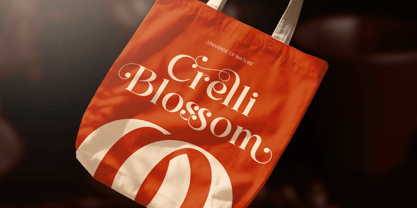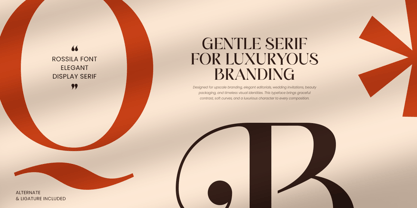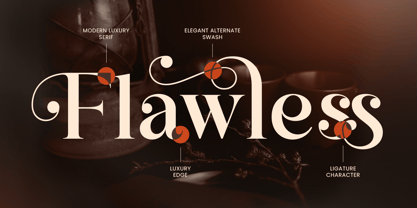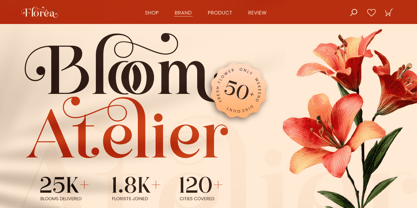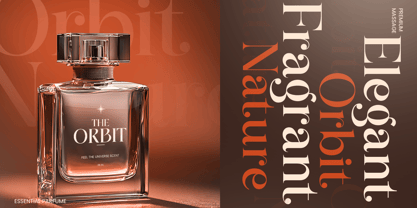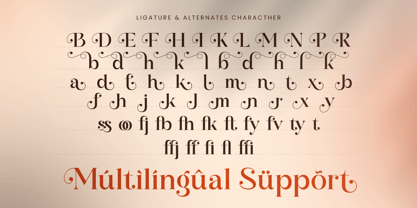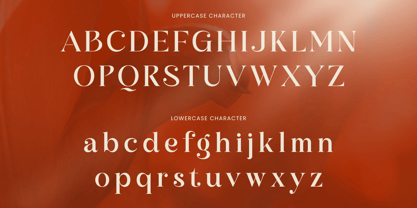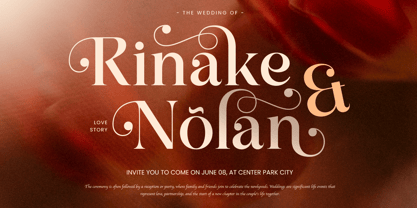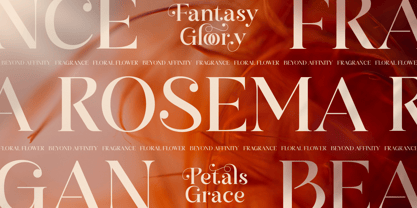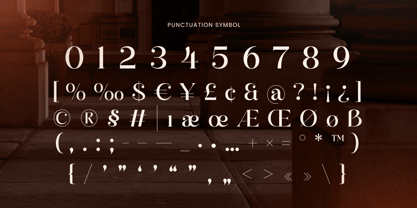
Rosslia
Rosslia is an elegant luxury serif font designed to express refinement, sophistication, and timeless beauty. Featuring graceful curves, balanced proportions, and high-end serif details, this typeface is ideal for luxury branding, fashion campaigns, editorial layouts, and premium packaging.
Crafted for designers who seek exclusivity and elegance, Rosslia blends modern aesthetics with classic serif charm. Its refined letterforms create a polished visual presence that works beautifully for logos, magazine headlines, invitations, beauty products, and upscale brand identities.
Whether used in print or digital media, Rosslia delivers exceptional readability while maintaining a luxurious and memorable character, making it a perfect choice for brands that value elegance and prestige.
Rosslia – Elegant Luxury Serif Font Features
• Elegant serif design with timeless luxury appeal
• Perfect for branding, editorials, fashion, and premium packaging
• Sophisticated letterforms with refined visual balance
• Ideal for beauty, lifestyle, wedding, and luxury industries
• Uppercase, lowercase, numerals, and punctuation included
• OpenType features for advanced typographic styling
Bring timeless elegance to your brand with Rosslia – the ultimate luxury serif font for sophisticated and premium design. ✨💎